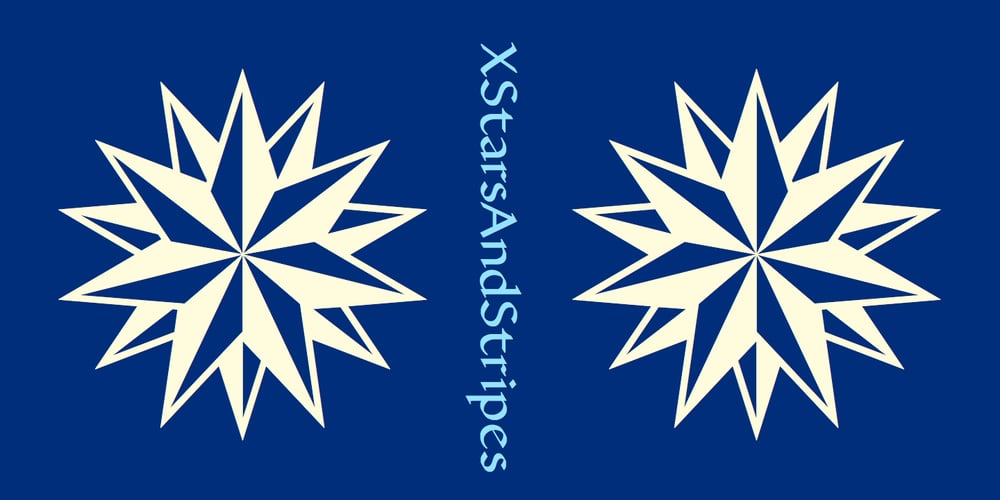
XStarsAndStripes Font Family was designed by Robert Schenk and published by Ingrimayne Type. XStarsAndStripes contains 2 styles and family package options. These two typefaces contain elaborate star patterns. XSarsAndStripesOne and XStarsAndStripesTwo are mirror images of each other.